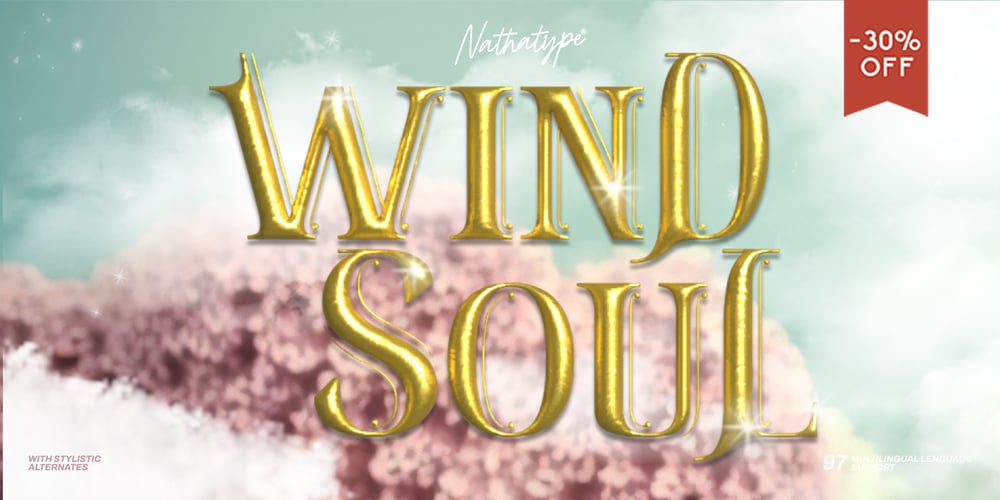
Wind Soul Font Family was designed by Donis Miftahudin and published by Nathatype. Wind Soul contains 1 styles and family package options. Wind Soul is a whimsical display font that floats into the visual realm with an airy charm. Crafted in uppercases and playful design elements, Wind Soul is a delightful typeface that brings a sense of lightness and joy to any creative project.This is ALL CAPS font.The characters in Wind Soul are generously sized, enhancing the font’s playful and larger-than-life aesthetic. The thick font weight adds a comforting solidity, while the design, reminiscent of a balloon’s roundness, infuses a sense of fun and lightheartedness into each letter. Enjoy the features here.Features: Alternates Stylistic Sets Multilingual Supports PUA Encoded Numerals and Punctuations Wind Soul fits in headlines, logos, posters, flyers, branding materials, greeting cards, print media, editorial layouts, and many more designs. Find out more ways to use this font by taking a look at the font preview.Thanks for purchasing our fonts. Hopefully, you have a great time using our font. Feel free to contact us anytime for further information or when you have trouble with the font. Thanks a lot and happy designing.